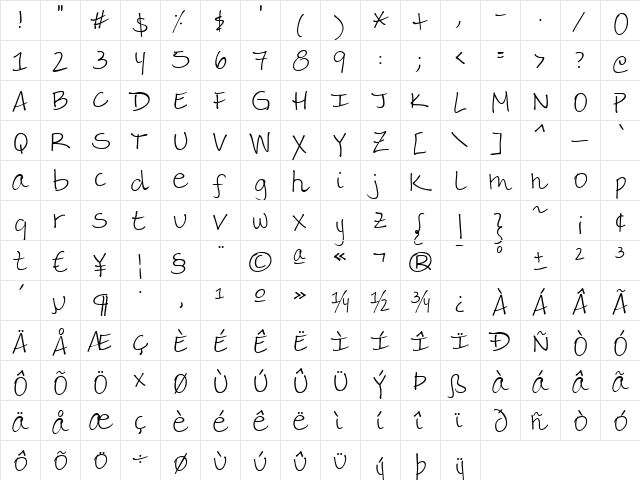
Martie One Regular
| Foundry | Canada Type |
| Designer | Martie & Rebecca |
Design Context for Martie One Typeface
Martie One is a composed and adaptable typeface that performs quietly and consistently across a wide range of design contexts.